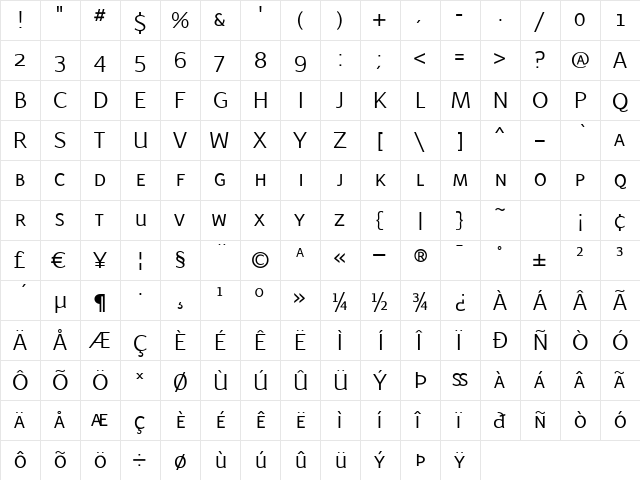
Latinaires Caps
Design Context for Latinaires Typeface
Latinaires takes a measured approach to typography — its balanced proportions and neutral character make it a reliable workhorse for both digital and print work.